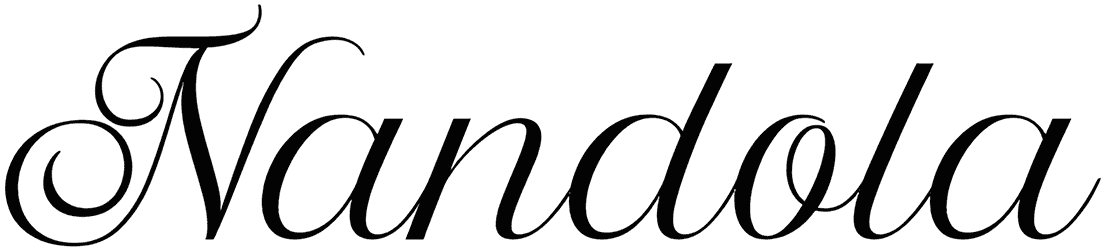
Nandola Font
Don’t pass it up without trying this charming and classic font, named Nandola. This calligraphy font, with its delicate and silky lettering, could be harmonized with any formal or informal project. With an almost full cover of characters, this ravishing handwritten font is a perfect choice for your novel designs, like flyers, logos, postcards, and so on.